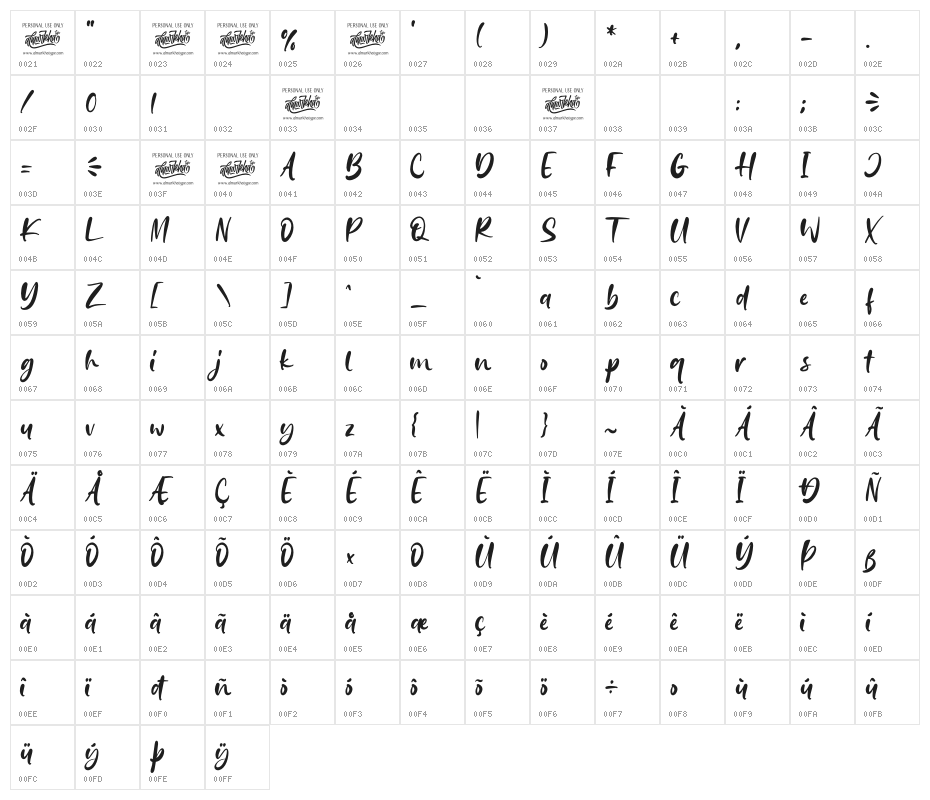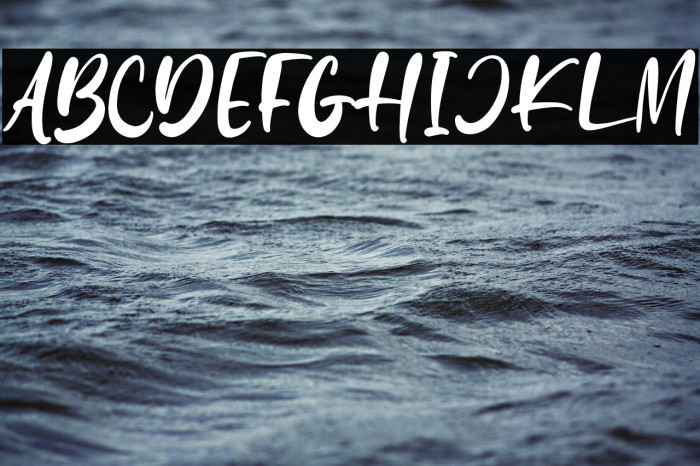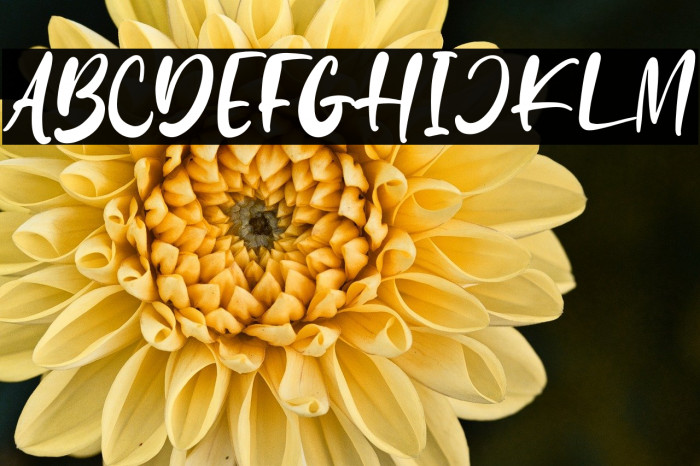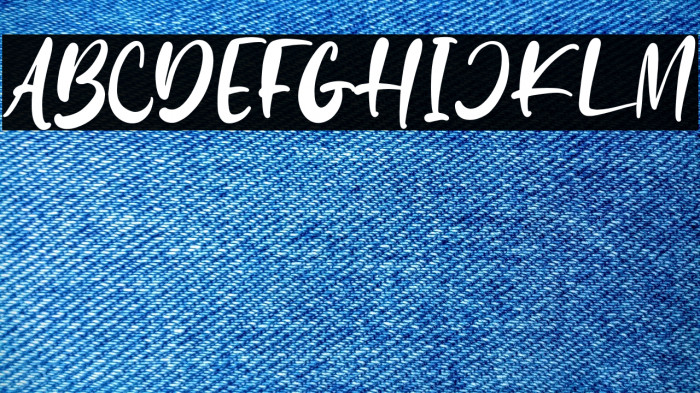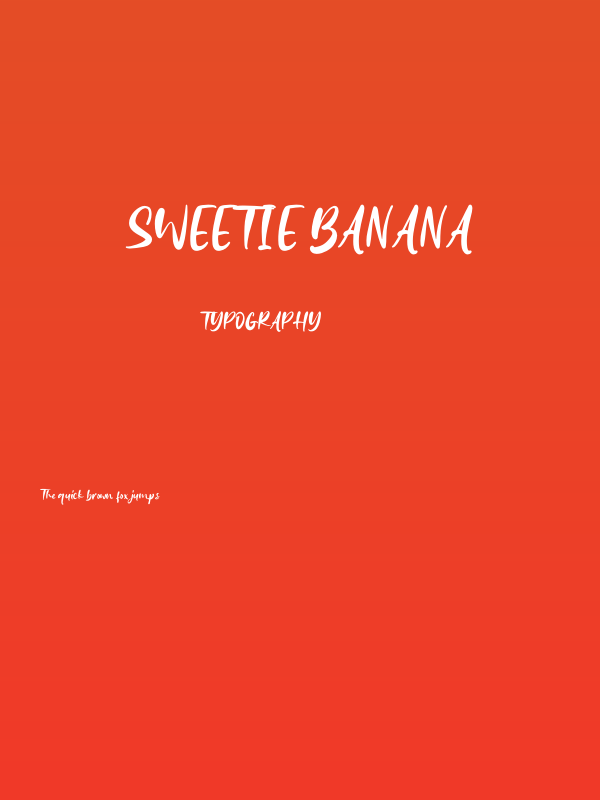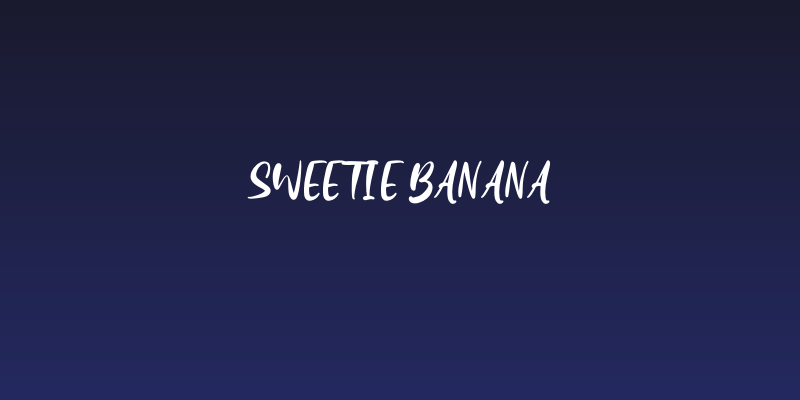
Sweetie Banana Font
Sweetie Banana Description
This font exudes a playful and energetic vibe, characterized by its bold and flowing script style. The letters are crafted with a brush-like appearance, giving them a hand-drawn feel that is both casual and artistic. The uppercase letters are tall and slightly slanted, while the lowercase letters maintain a consistent flow with a slight bounce, adding to the font's dynamic nature. The numbers and special characters are designed to match the overall style, ensuring a cohesive look. This font is perfect for projects that require a personal touch, such as invitations, greeting cards, or branding materials.
| Proposed Projects | Ideal for invitations, greeting cards, branding, and any project needing a personal, artistic touch. |